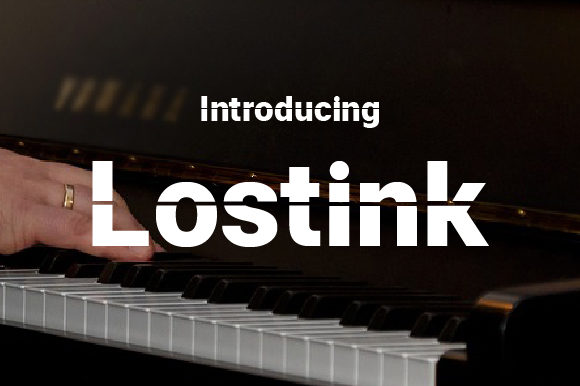
Prepare to be spellbound by Lostink, a captivating sans serif font family crafted to ignite your creativity and elevate your designs to new heights. This typographic masterpiece, curated by the visionary da_only_aan, presents an extraordinary fusion of elegance and versatility.
As you delve into the depths of Lostink's characters, you'll uncover a world of boundless possibilities. Each stroke and curve has been meticulously designed to evoke a sense of sophistication and charm, making it the perfect choice for adding a touch of distinction to your projects.
Whether you're creating stunning logos, captivating headlines, or eye-catching social media graphics, Lostink stands ready to amplify your message and make a lasting impression. Its three unique styles offer a kaleidoscope of design options, allowing you to effortlessly craft diverse and captivating compositions.
But Lostink isn't just a font; it's an experience. As your fingers glide across the keyboard, you'll feel the energy of creativity coursing through your veins. Lostink transforms your ideas into tangible works of art, breathing life into your designs and captivating your audience.
So, embrace the allure of Lostink and unlock the gateway to design excellence. Let your imagination soar as you explore the endless possibilities that await you. Unleash the power of Lostink today and discover the transformative impact it can have on your creative journey.